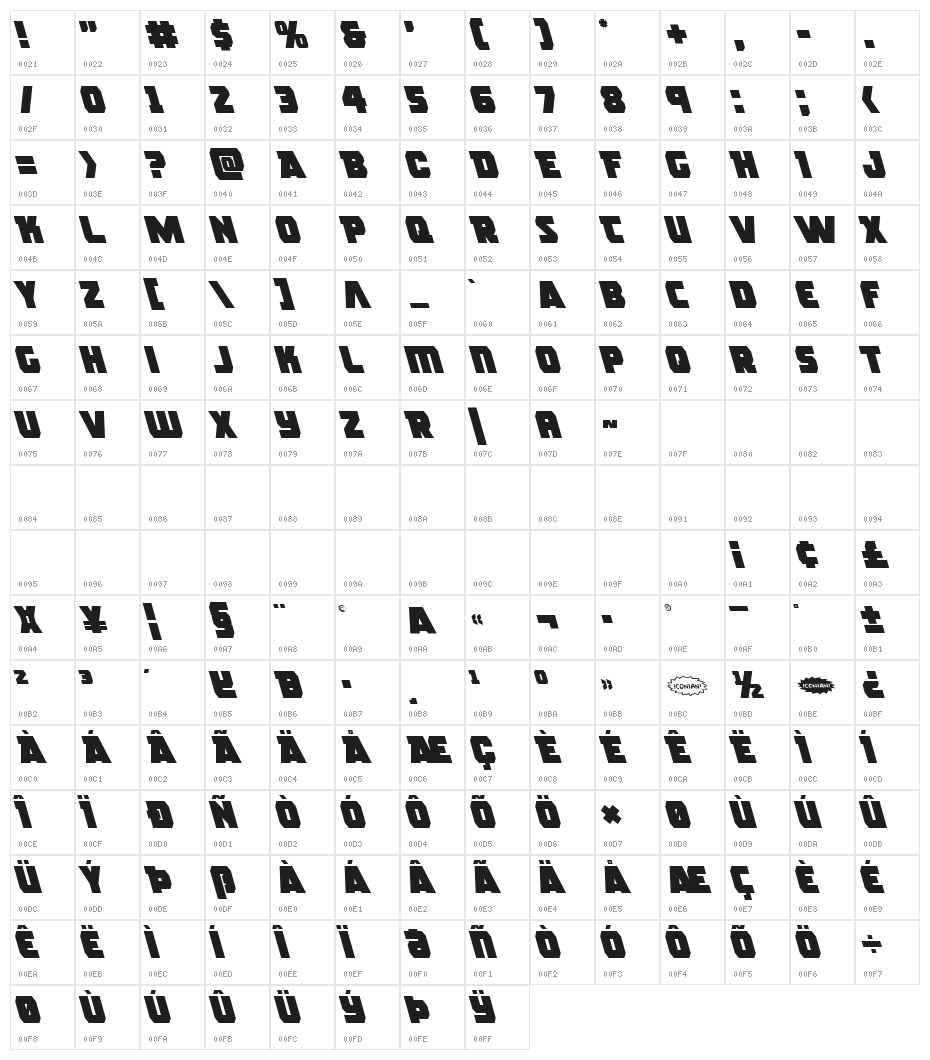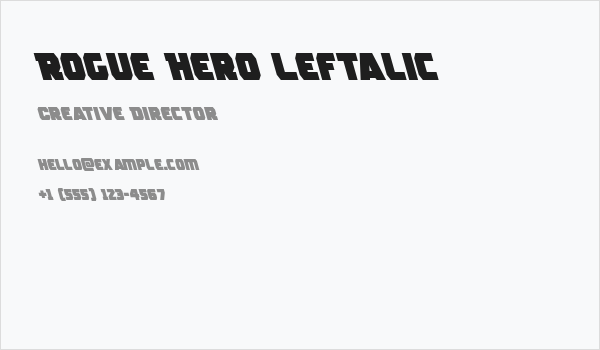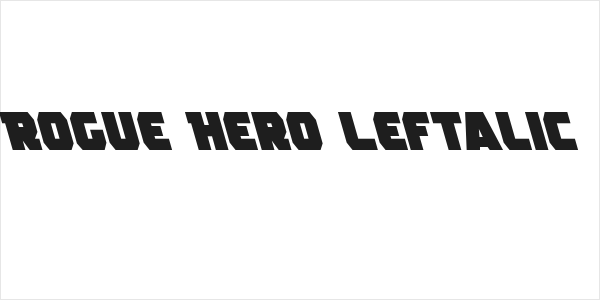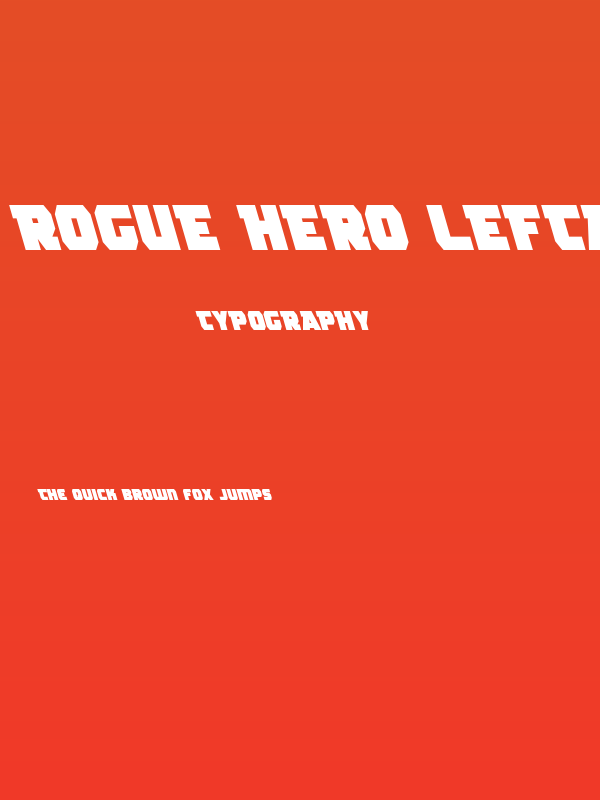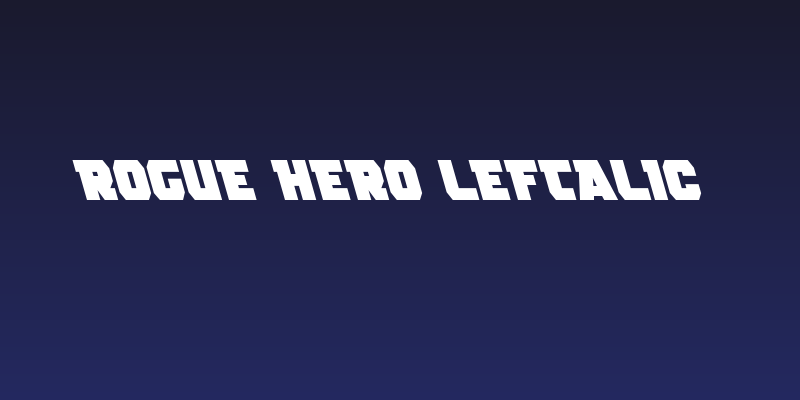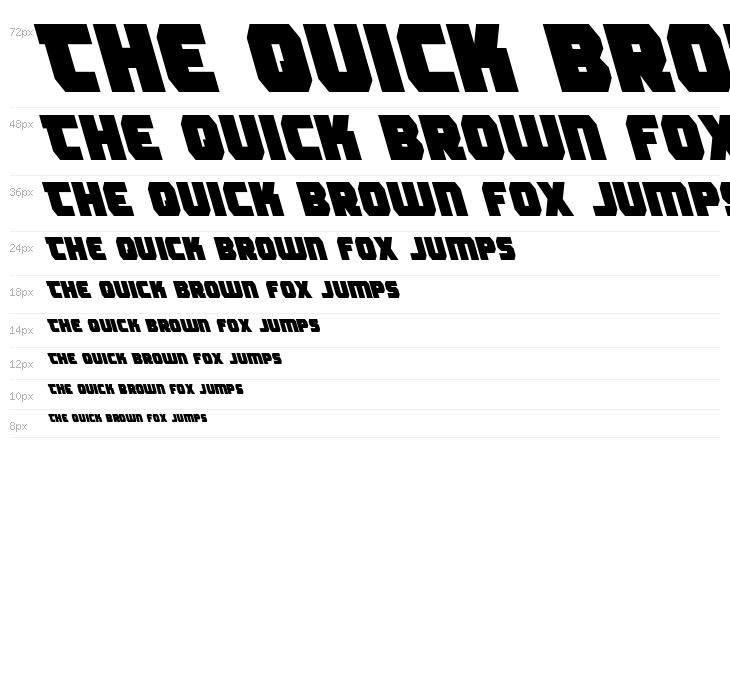
Rogue Hero Leftalic Font
Rogue Hero Leftalic Description
This font features a bold and dynamic style with a strong presence. The characters are sharply angled, giving a sense of movement and energy. The uppercase letters are particularly striking, with a blocky and geometric design that commands attention. The lowercase letters maintain the same boldness, ensuring consistency across the typeface. Numbers and special characters are equally robust, making this font versatile for various uses. The overall appearance is modern and impactful, suitable for projects that require a bold statement.
| Proposed Projects | Ideal for sports branding, action movie posters, video game titles, and dynamic advertising campaigns. |